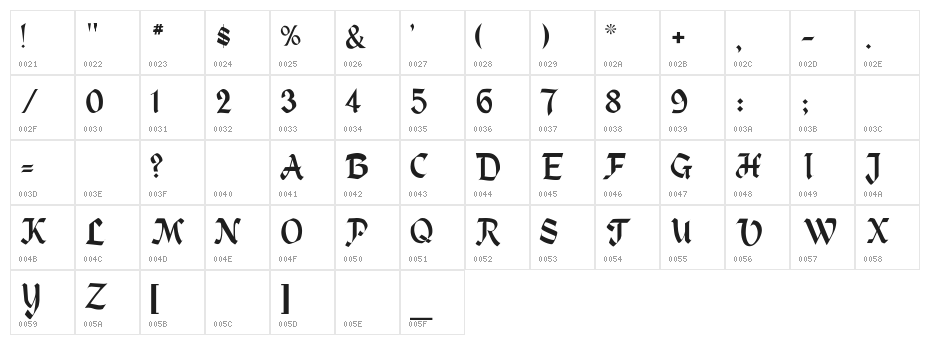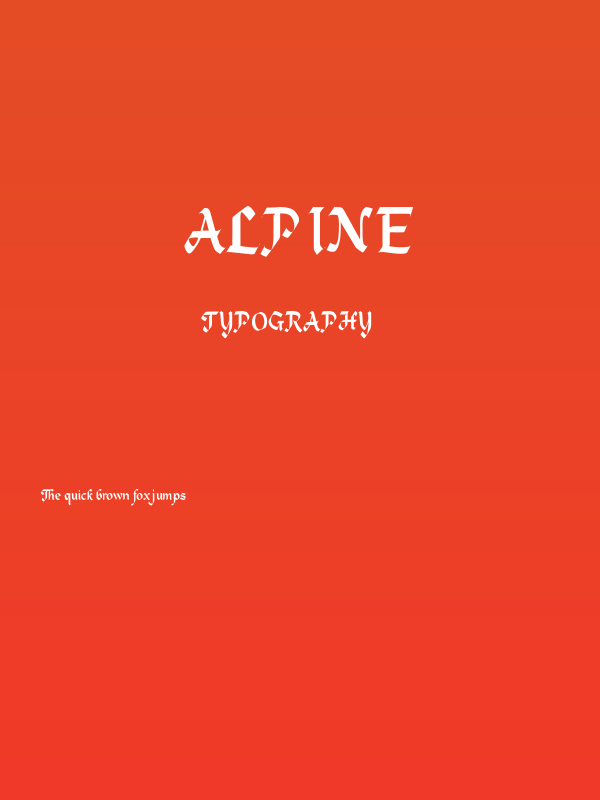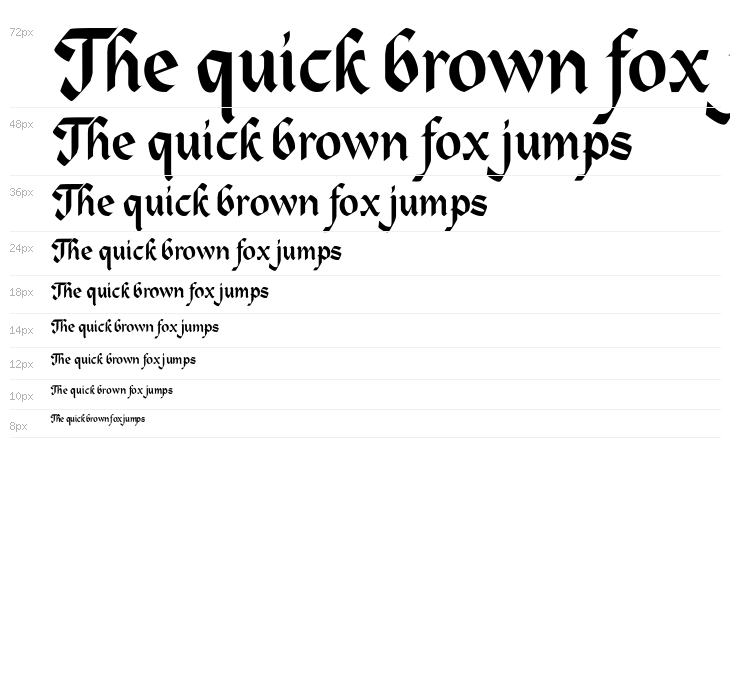
Alpine Font
Alpine Description
This font exhibits a strong, traditional Blackletter style, characterized by its bold, angular strokes and intricate detailing. The uppercase letters are particularly ornate, with sharp serifs and a distinct medieval flair. The lowercase letters maintain a consistent style, with a slightly more rounded appearance that complements the uppercase. Numbers and special characters are crafted with the same attention to detail, ensuring a cohesive look across all glyphs. The overall design is reminiscent of historical manuscripts, making it ideal for projects that require a touch of elegance and historical authenticity.
| Categories | Gothic |
| Overall Style | Vintage |
| Use Case | Headlines, Logos, Decorative text |
| Proposed Projects | Ideal for historical documents, certificates, book covers, and branding that requires a classic, medieval touch. |